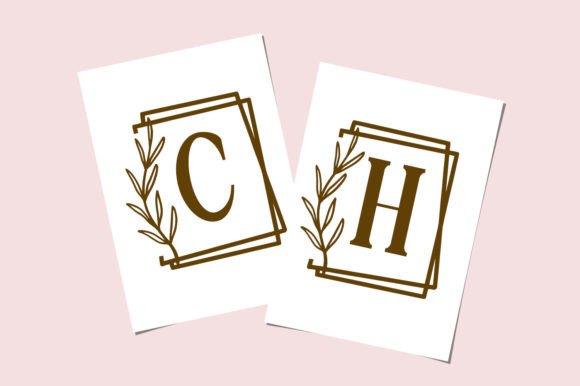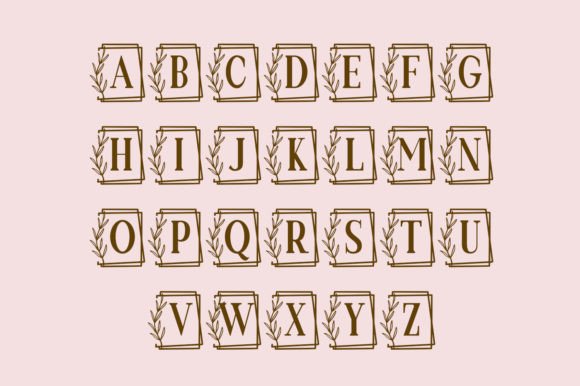
Monogram Floral Border Font – Free Download
Introduction to Monogram Floral Border Font
Monogram Floral Border Font is a beautiful monogram font.
This font will add a feeling of love to any craft idea, be it wedding crafts, invitations, greeting cards, Valentines, logos, and others .